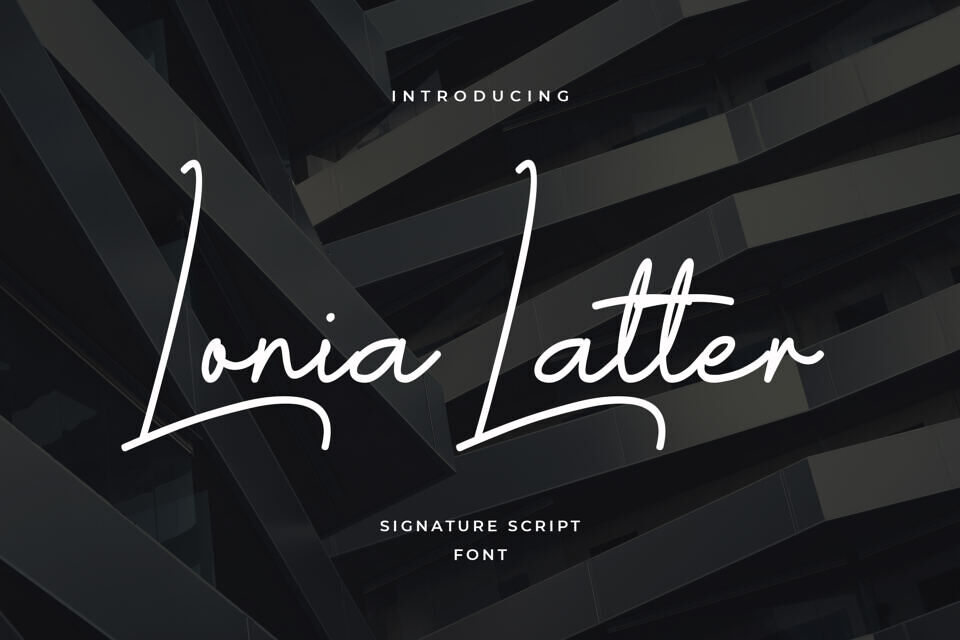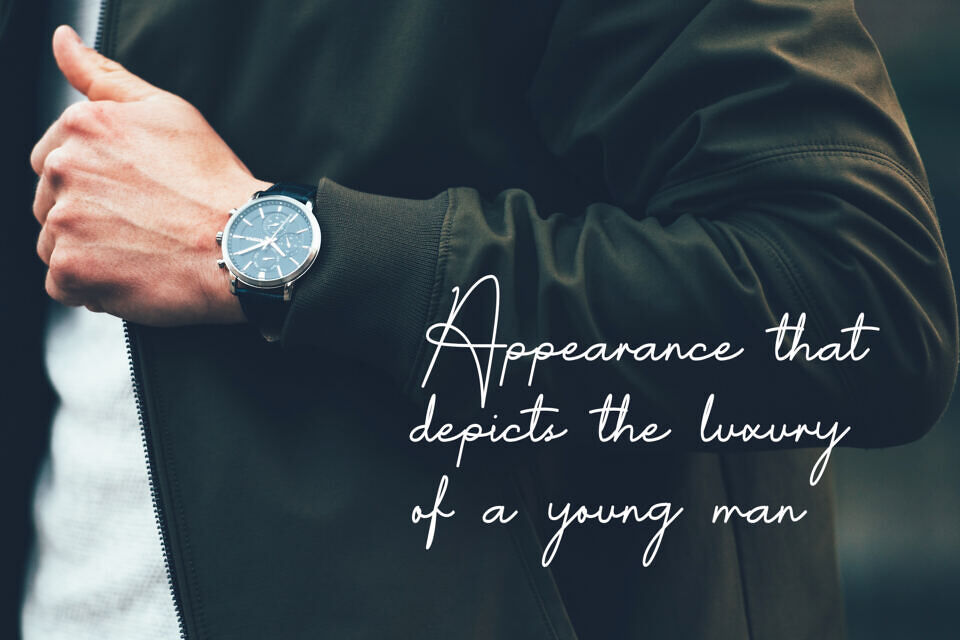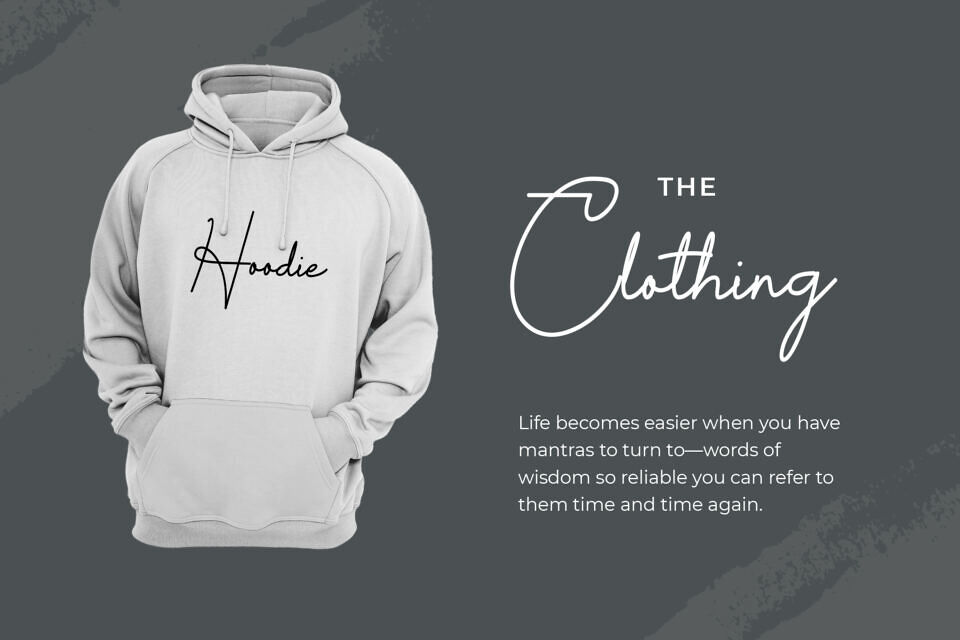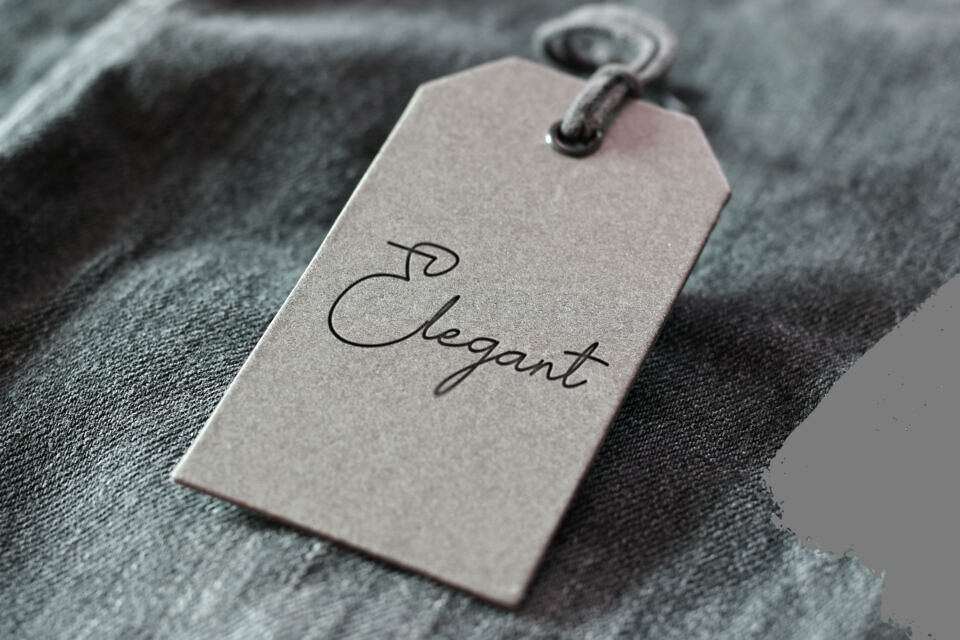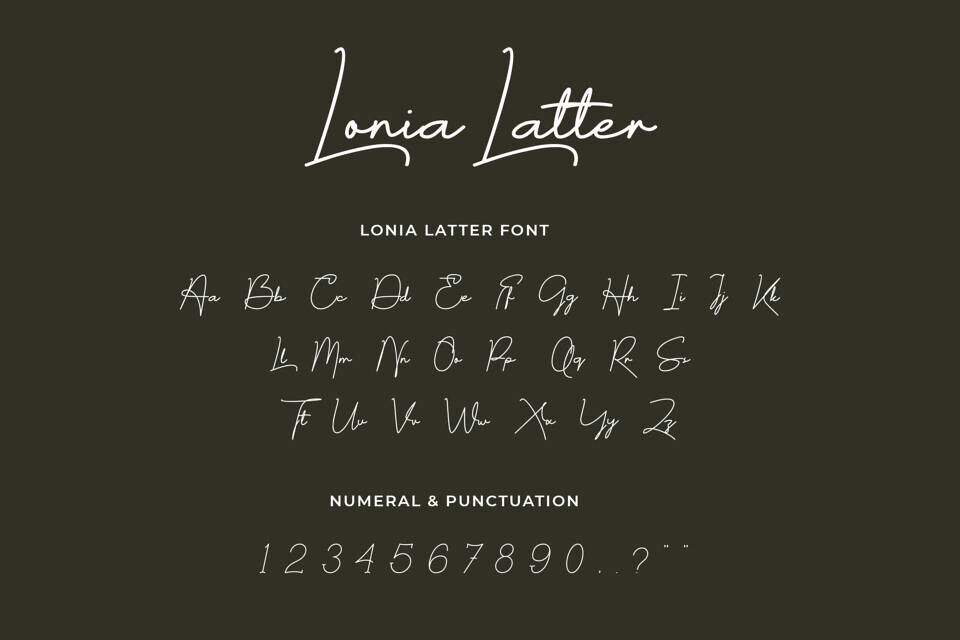
Lonia Latter Font
Lonia Latter is a modern script font that is readable, refined and stylish. It is defined by smooth curves and is perfect for fashion branding or editorial designs. Add it confidently to your projects, and you will love the results.